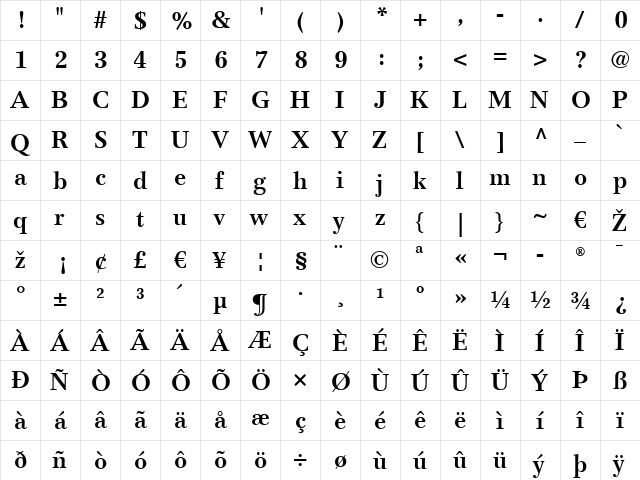
Iridium LT Regular Bold
| Designer | Adrian Frutiger |
Design Context for Iridium LT Regular Typeface
Iridium LT Regular offers clean, dependable letterforms without strong stylistic allegiance, making it a practical choice for designers who need flexibility. Its bold stroke weight gives it real presence on the page.